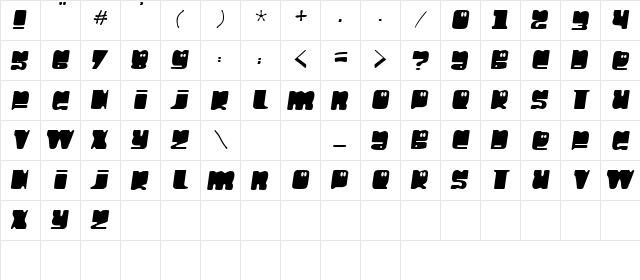
Hello Larry Regular
Design Context for Hello Larry Typeface
Hello Larry is a composed and adaptable typeface that performs quietly and consistently across a wide range of design contexts.